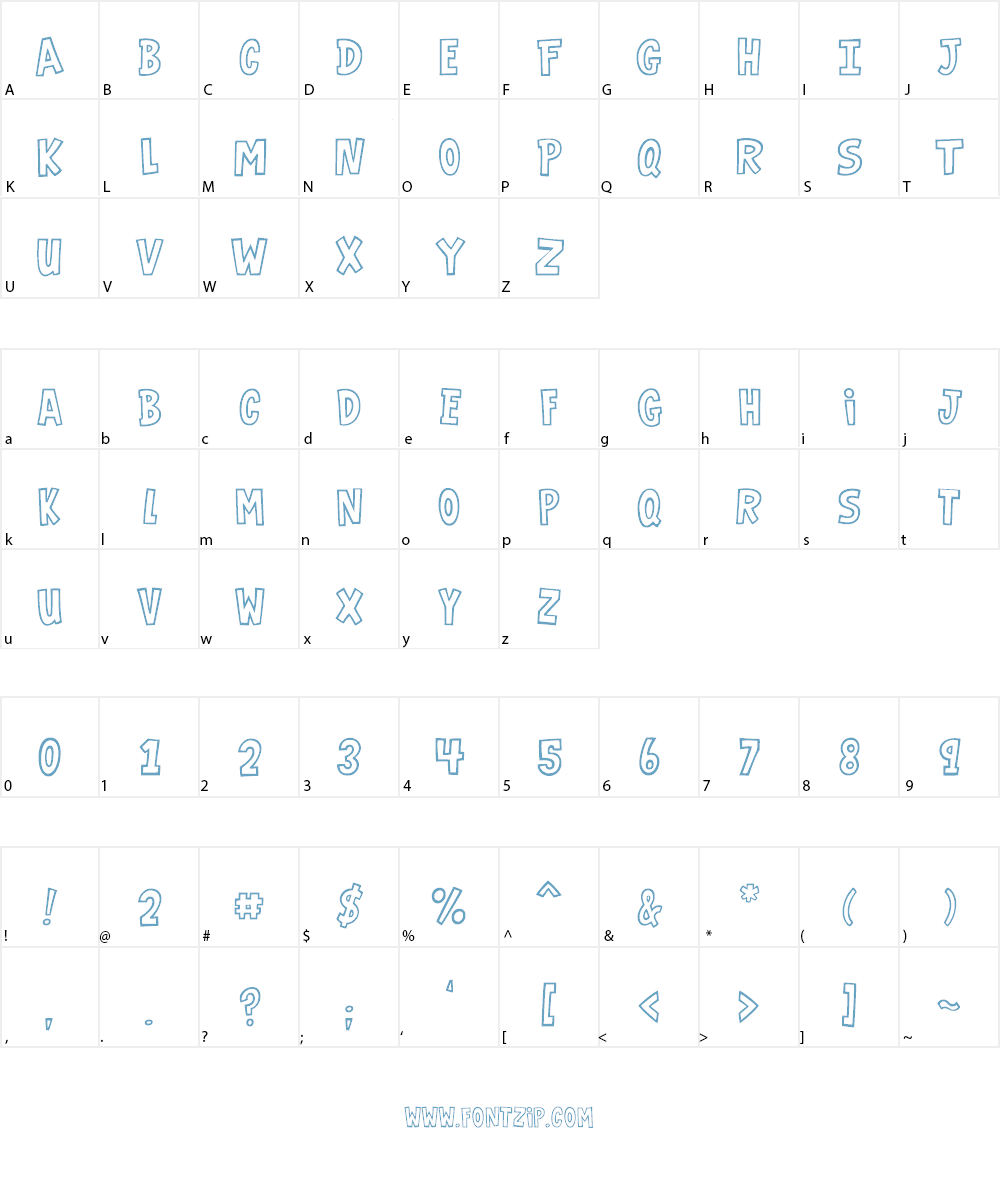
This is just a fun poster font, I see Garage sale signs all around my house all the time and thought it would be fun to make something that reminded me of them so here it is! Hope yas enjoy!
Larry E Yerkes